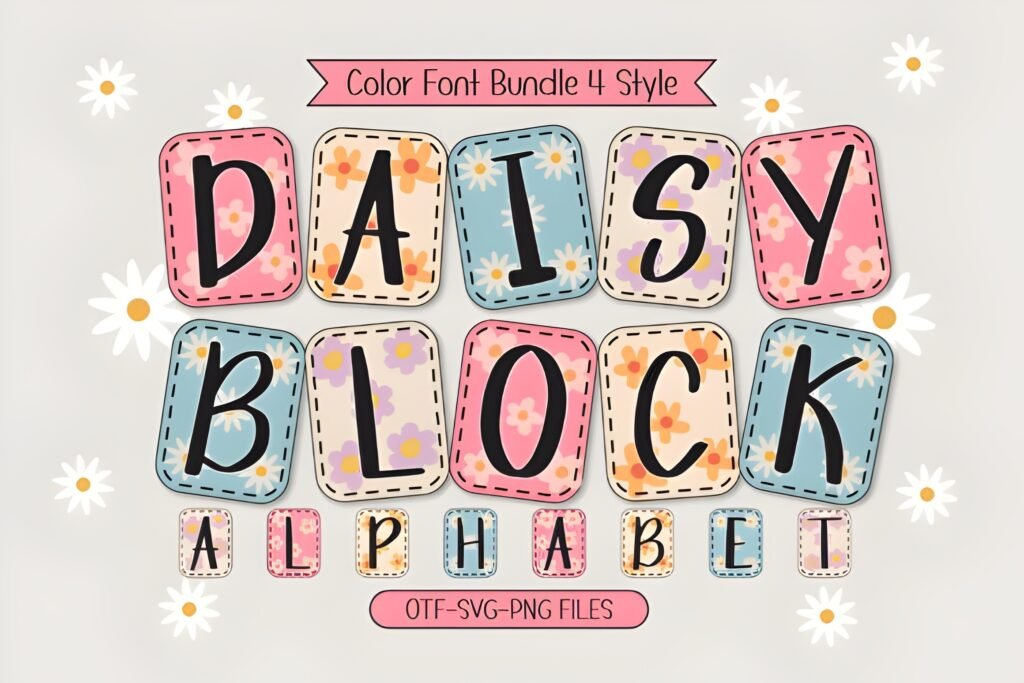
🌼 Daisy Block Alphabet — A Whimsical Collage‑Style Font in Vintage Pastel Bloom
Say hello to Daisy Block Alphabet, a charming collage‑inspired font that blends hand‑drawn lettering with adorable daisy motifs in soft, vintage pastel tones. Each character feels like a tiny piece of springtime art — playful, fresh, and full of personality. Designed to evoke joy and creativity, this font is a perfect match for projects that need a floral twist and a retro soul.
With four themed color variations, Daisy Block Alphabet offers flexibility and flair for all your creative needs. Whether you’re crafting custom name designs, DIY decorations, New Year party signage, T‑shirt sublimations, greeting cards, or scrapbooking layouts, this font adds a sweet, nostalgic vibe that instantly elevates your work.
Ideal for daisy lovers and pastel enthusiasts, this typeface turns ordinary text into a blooming centerpiece. The hand‑lettered feel combined with collage textures gives your designs a unique, handcrafted look that’s both stylish and heartwarming.
Let Daisy Block Alphabet sprinkle your projects with floral charm and vintage delight — a font that celebrates creativity, color, and the timeless beauty of daisies.